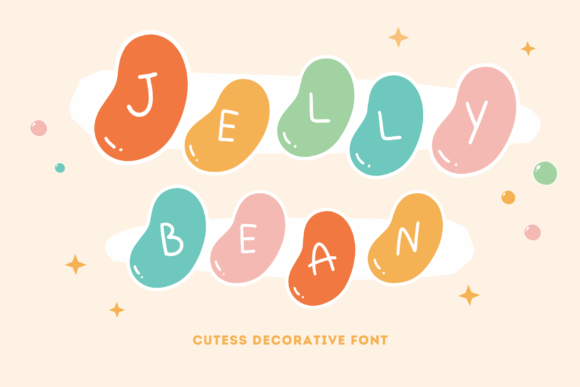
Step into a world of enchanting elegance with Jelly Bean Font, a decorative masterpiece crafted by Bamburrow, that transforms your creative visions into captivating realities! Let your imagination dance with this font's charm, as it effortlessly adds a touch of whimsy and delight to your designs, leaving an unforgettable impression on all who behold it.
Dive into a symphony of versatile expressions with Jelly Bean Font, where each letter dances gracefully, carrying the weight of your words with finesse. Whether you're crafting product branding or content that speaks volumes, designing a display headline that commands attention, or creating packaging that exudes sophistication, Jelly Bean Font effortlessly elevates your work to new heights of visual artistry.
Unleash the magic of Jelly Bean Font in your wedding video and watch as it weaves a spellbinding narrative, capturing the essence of love and joy. Its enchanting curves and playful strokes add a touch of whimsy and enchantment, transforming your video into a visual masterpiece that will forever hold a special place in your heart.
Experience the transformative power of Jelly Bean Font as it breathes life into your designs, igniting a spark of creativity and leaving an indelible mark on your audience. Its playful spirit and captivating charm will elevate your work to extraordinary levels, making it a font that not only beautifies but also captivates, leaving a lasting impression that will be cherished for years to come.
Embrace the allure of Jelly Bean Font and embark on a creative journey where your imagination reigns supreme. Let its enchanting presence grace your designs and witness the transformation it brings, as your words and visuals take on a new life, captivating hearts and minds with their captivating charm. Indulge in the magic of Jelly Bean Font today and unlock a world of boundless creative possibilities!